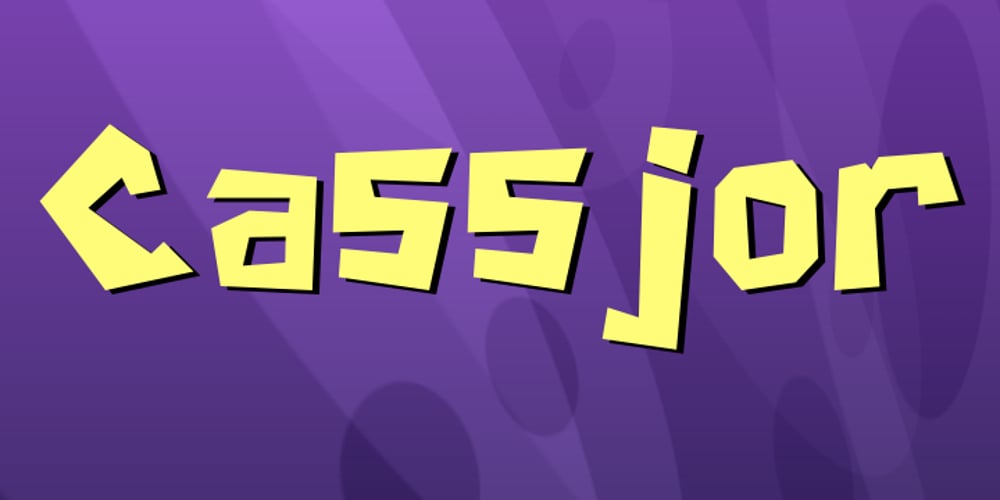
Cassjor Font Family was designed by Jordan Davies and published by Wooden Type Fonts. Cassjor contains 1 styles and family package options. An avant garde design, geometric.